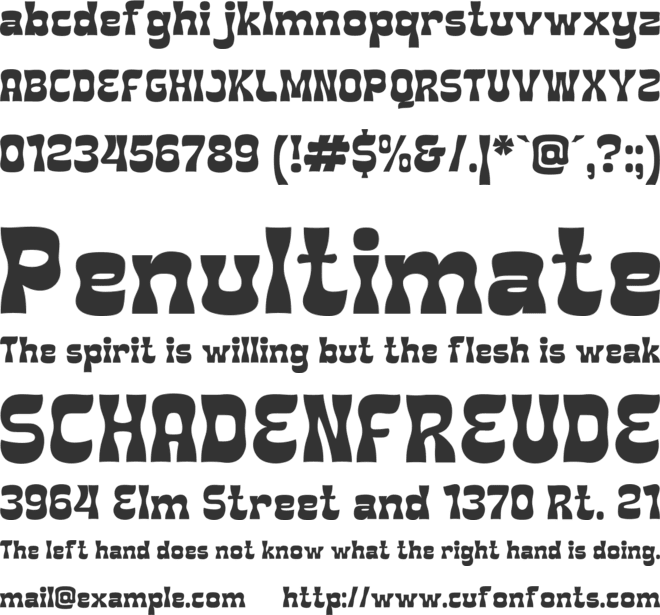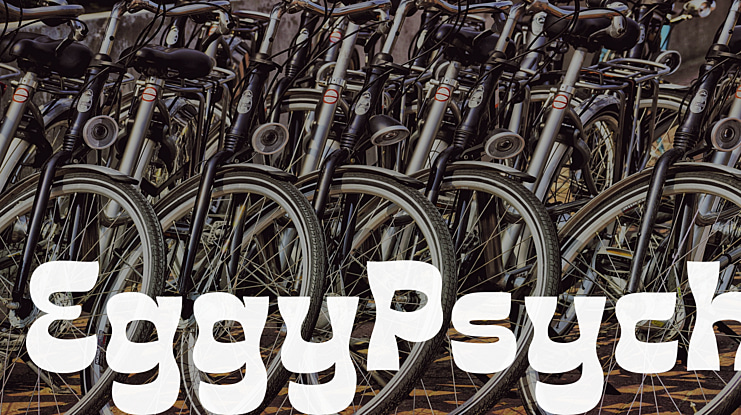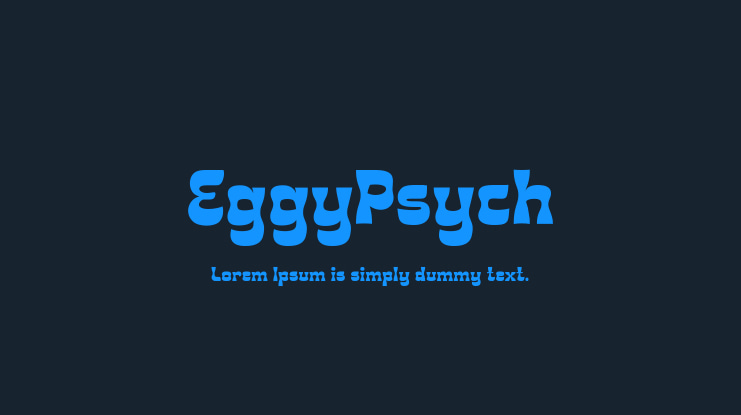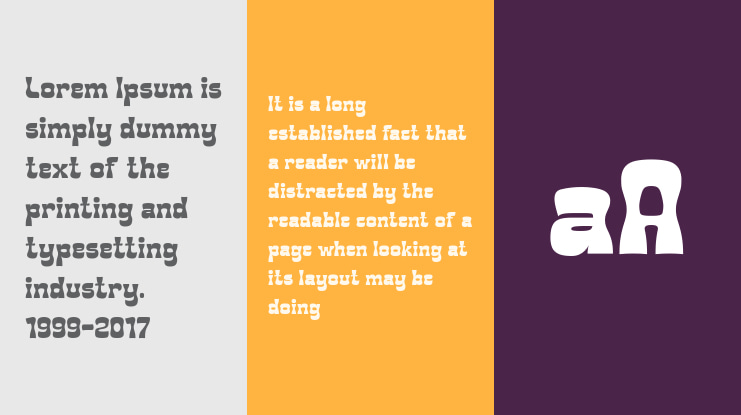
EggyPsych Font
Eggypsych is a retro psychedelic display font. Although retro is not only suitable for vintage designs, it is also suitable for modern designs such as magazine headlines or advertisement headlines. Because of the bold body, this font has a strong impression. This font is PUA encoded which means you can access all of the amazing glyphs and ligatures with ease!
Eggypsych is Multilungual support (Latin Extended-A) covering Bosnian, Catalan, Czech, Danish, German, English, Spanish, Estonian, Finnish, French, Irish, Croatian, Hungarian, Icelandic, Italian, Lithuanian, Latvian, Maltese, Dutch, Norwegian, Polish, Portuguese, Slovak, Slovenian, Albanian, Swedish, Turkish